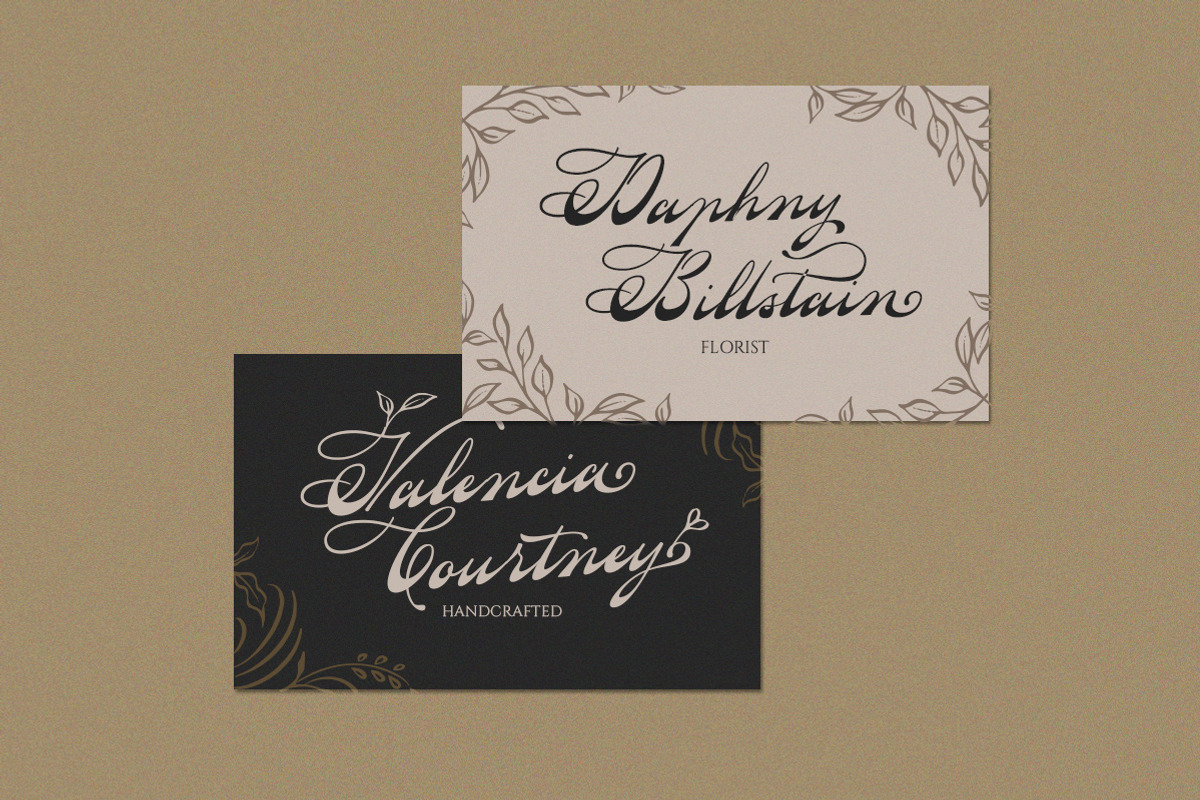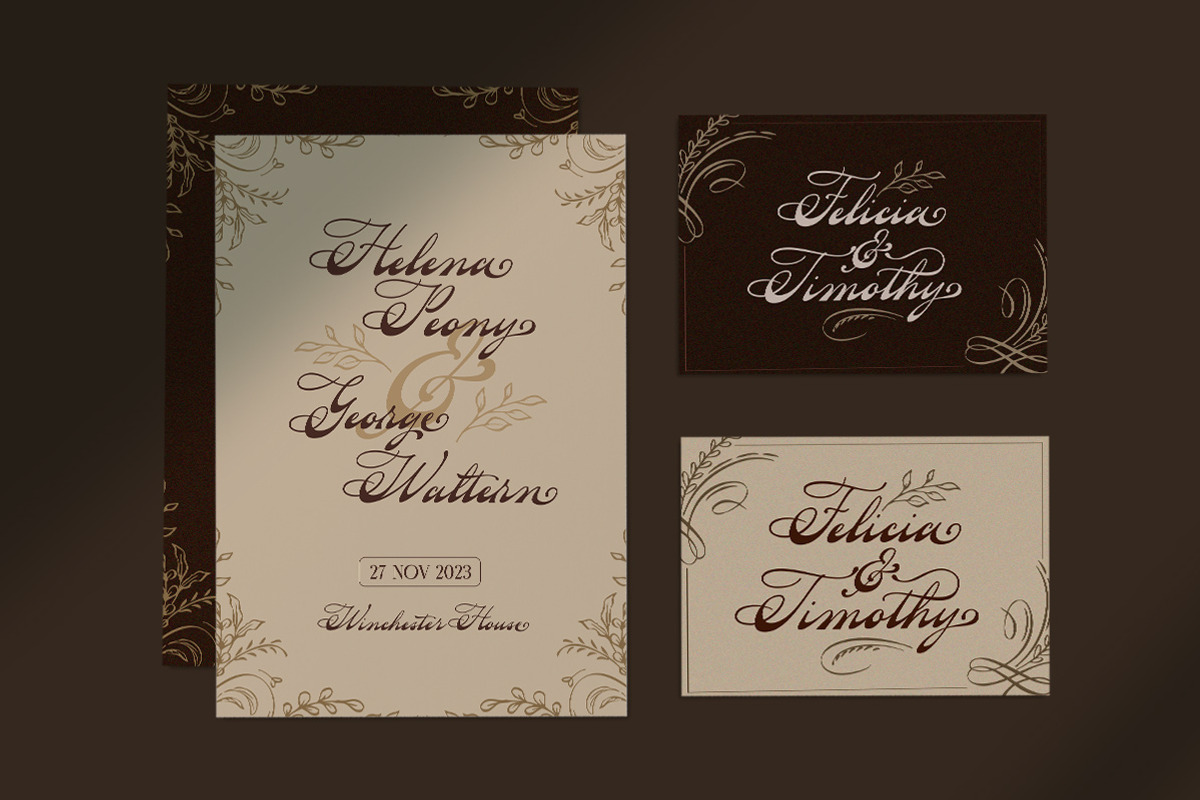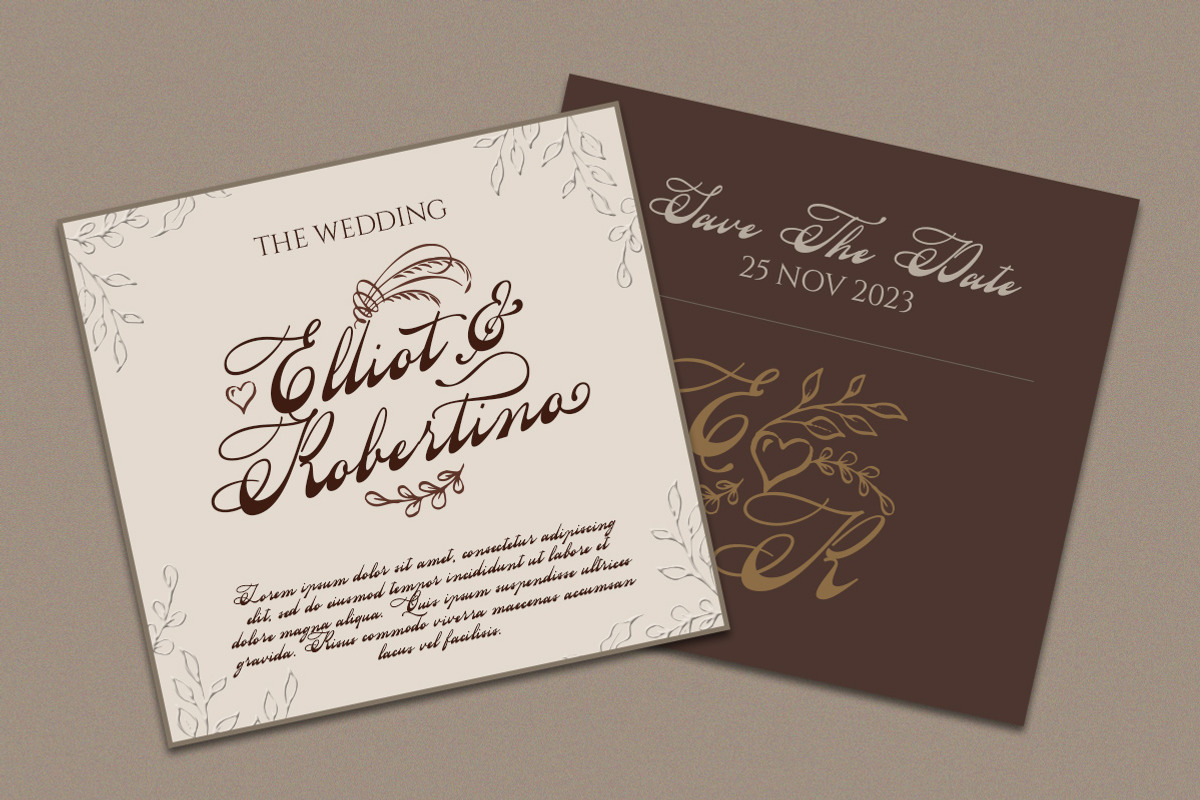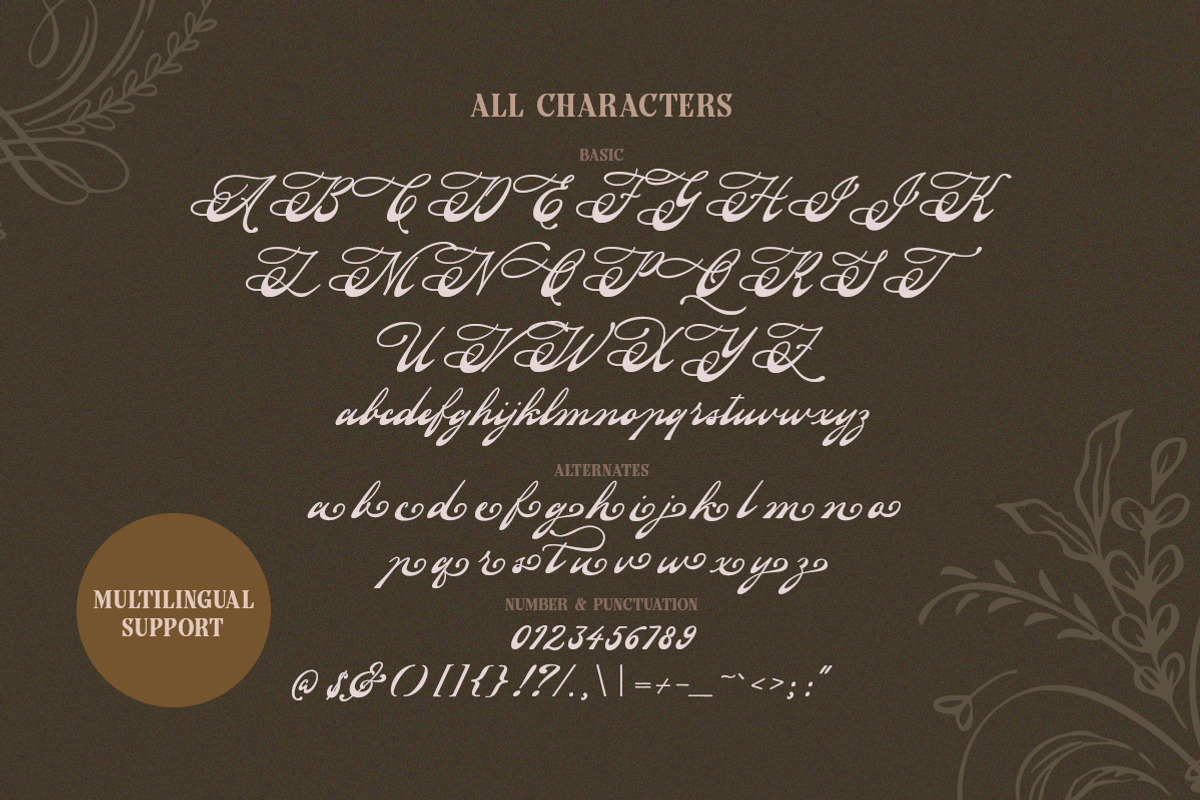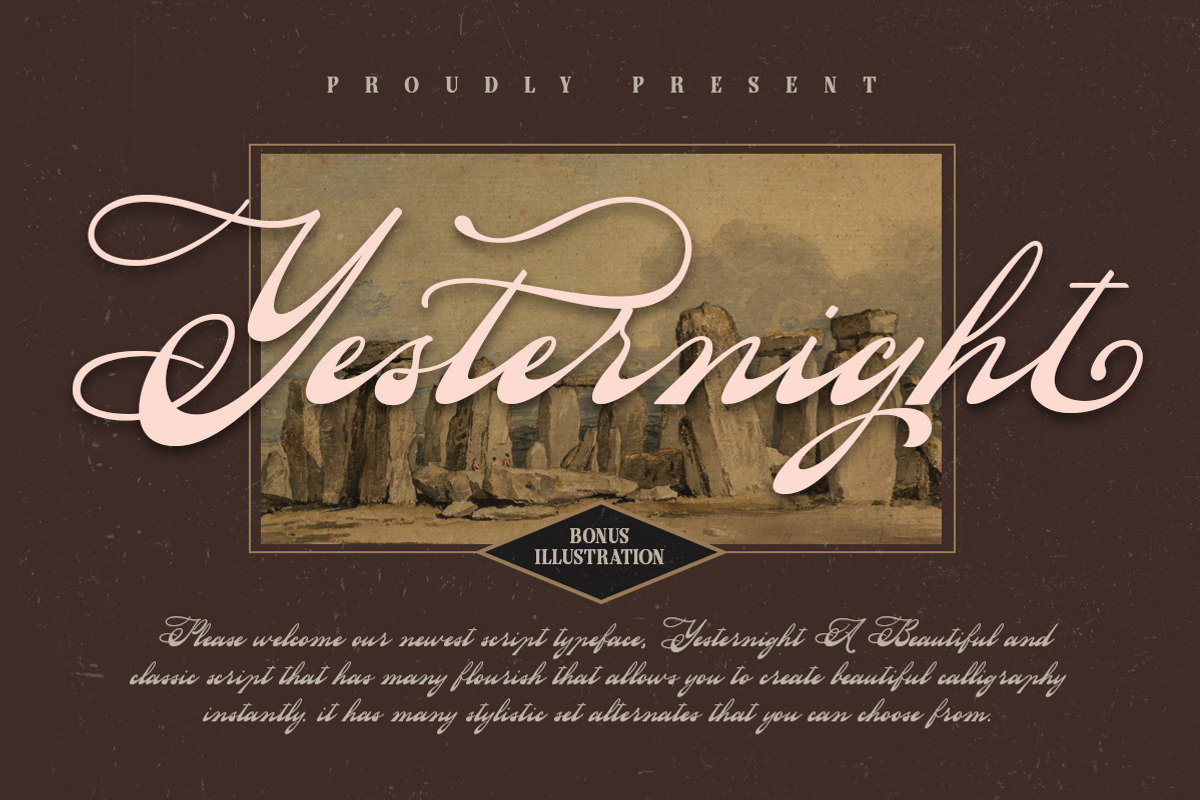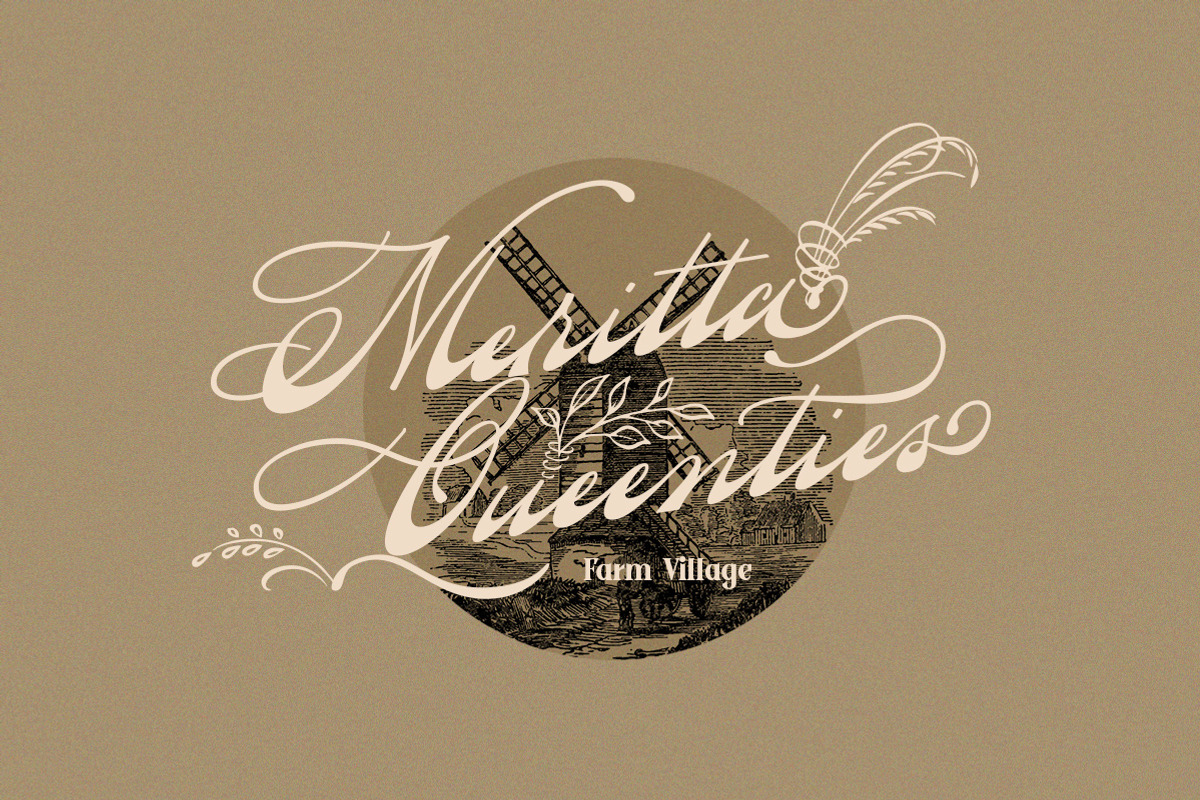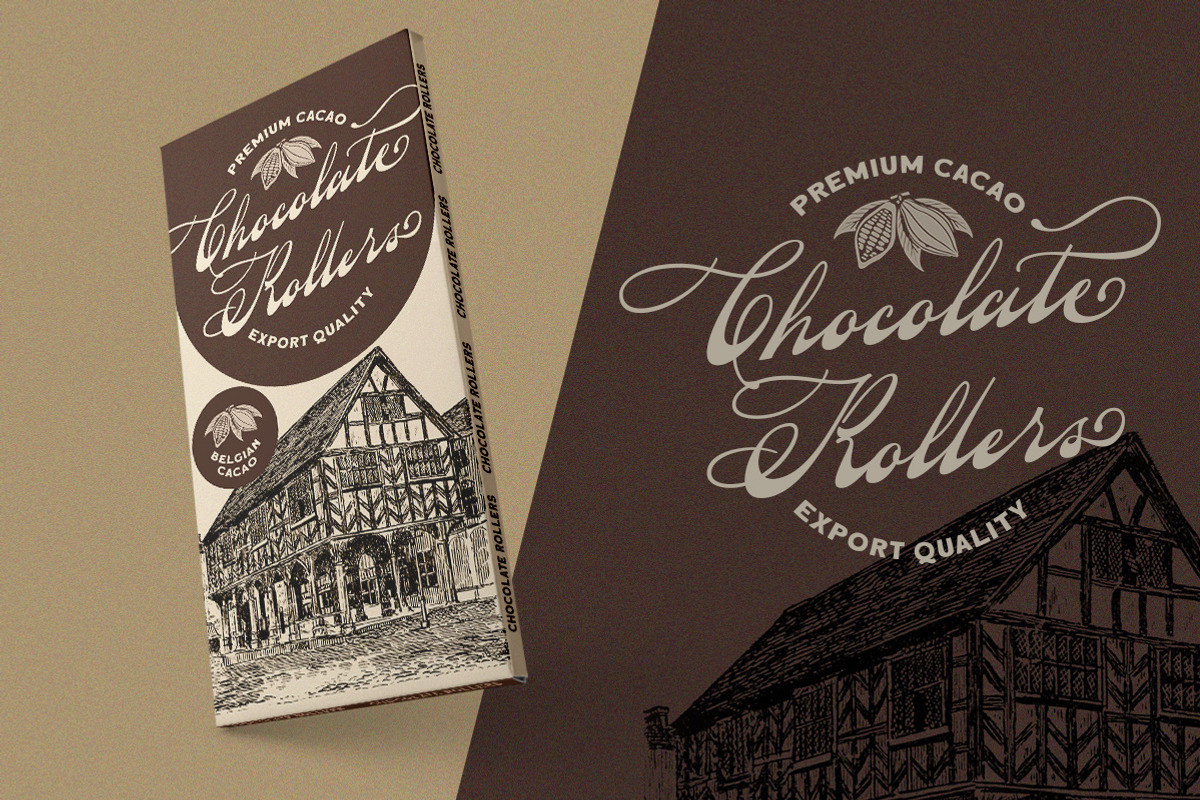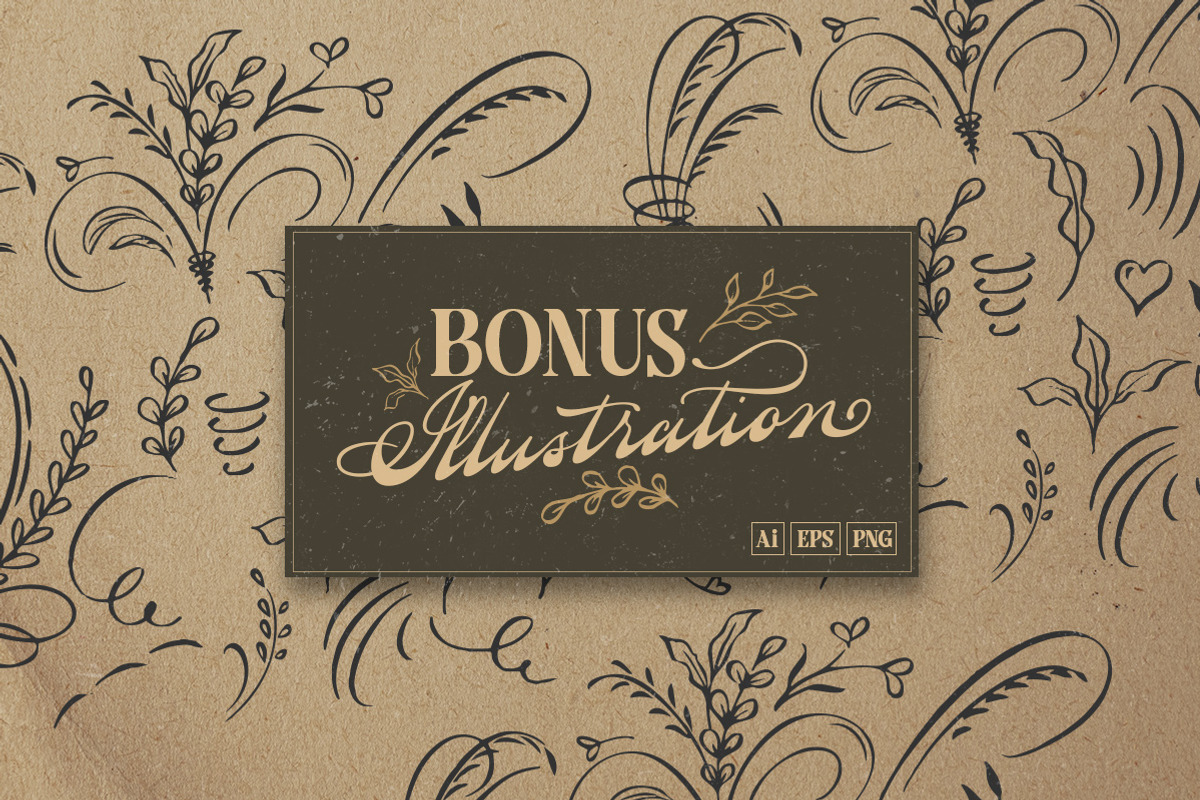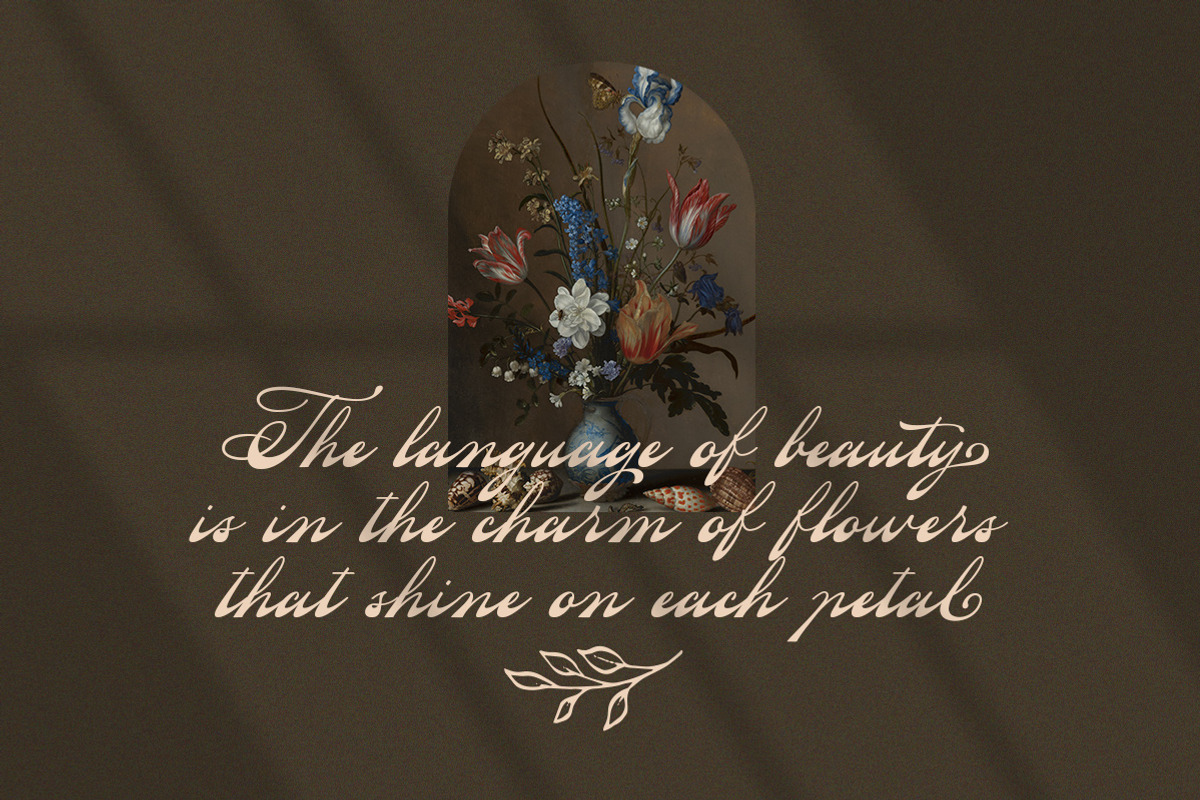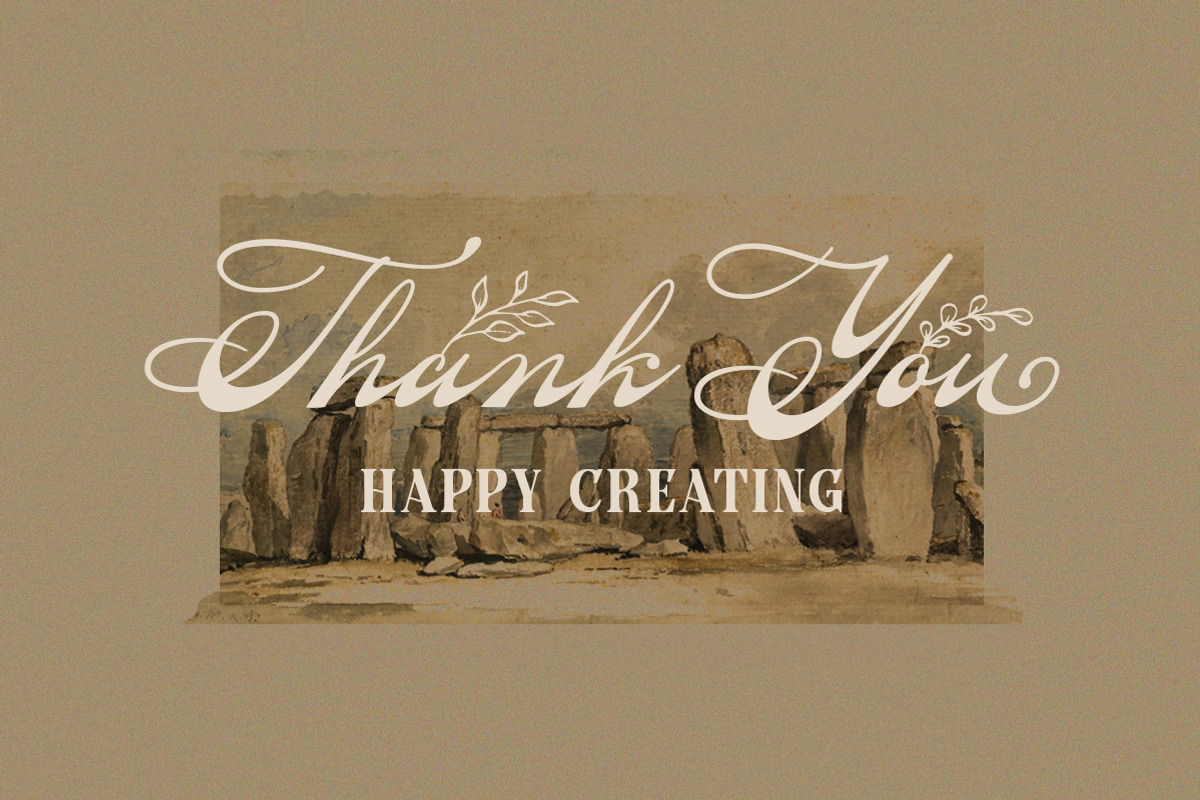
Yesternight - Classic Script
Introducing, Yesternight, A Vintage Script. This typeface has nostalgic feel because of its style, so the font is really match for your project with retro / vintage theme. The swashes make this typeface unique even more so you can use it to create beautiful vintage lettering in a sec.
This font perfectly made to be applied especially in logo, and the other various formal forms such as invitations, labels, logos, magazines, books, greeting / wedding cards, packaging, fashion, make up, stationery, novels, labels or any type of advertising purpose.
- alternates
- swashes